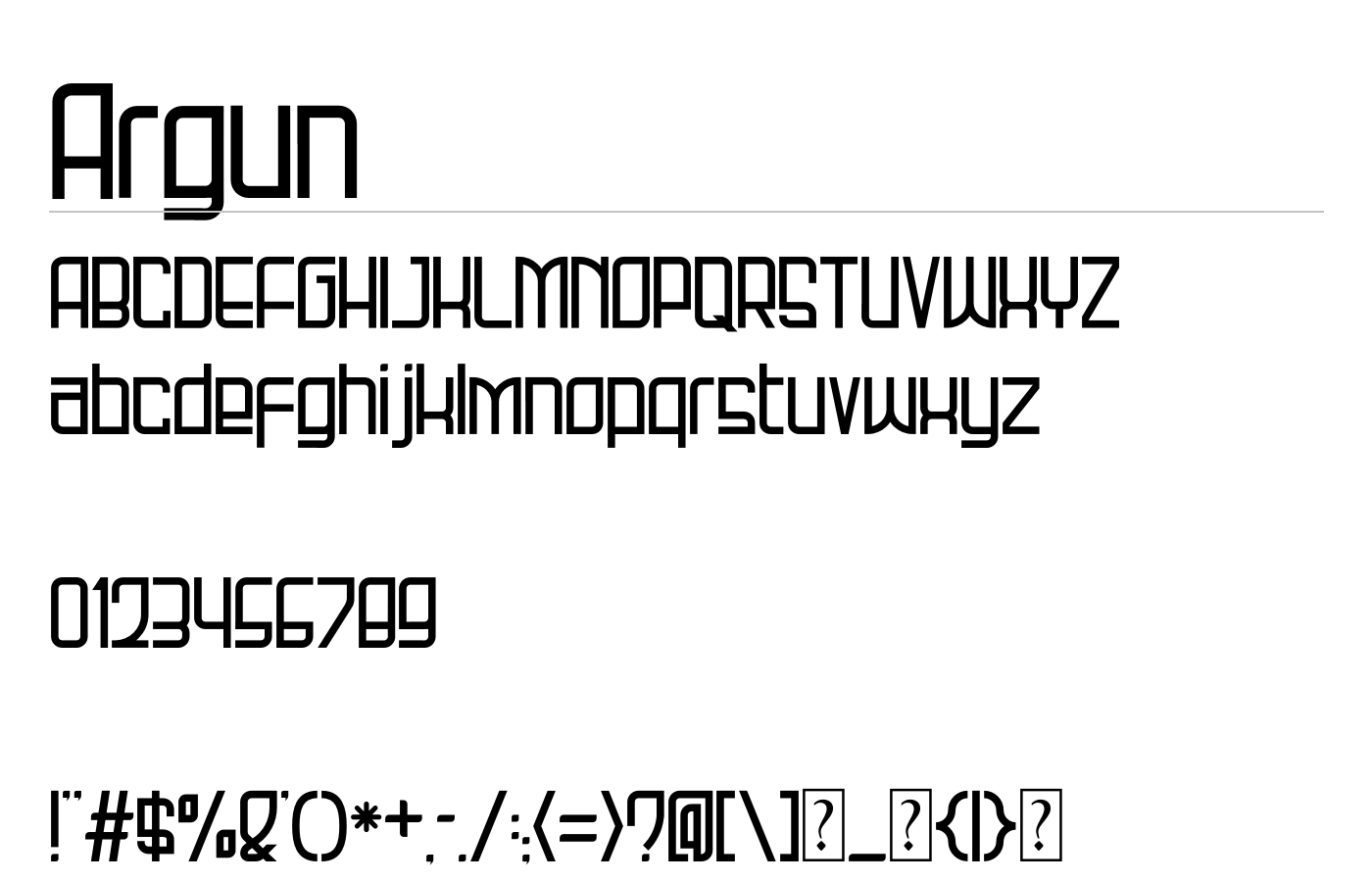
Argun is a modern, condensed sans serif font characterized by its clean, geometric lines and high x-height, giving it a sleek and technical appearance. Its consistent stroke weight and unique letterforms, including single-story “a” and stylized “Q,” create a futuristic and compact feel, making it well-suited for contemporary branding, headlines, and digital use where space efficiency and clarity are key. This font works best in tech, editorial, and minimalist design contexts, offering a fresh and distinctive look that stands out in modern visual communication.
Argun Font
About Argun Font